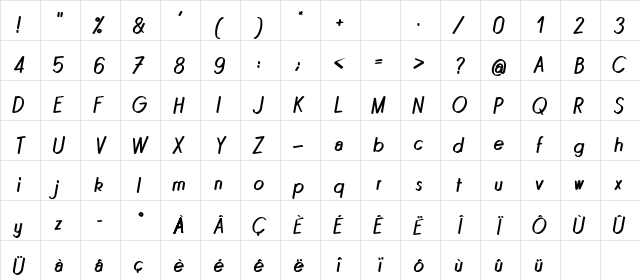
Quincaille Italique
Design Context for Quincaille Typeface
Quincaille offers clean, dependable letterforms without strong stylistic allegiance, making it a practical choice for designers who need flexibility.